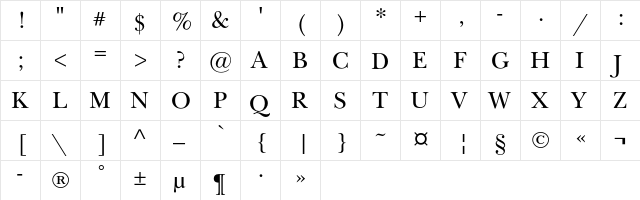
NewBaskervilleExpScC Regular
Design Context for NewBaskervilleExpScC Typeface
NewBaskervilleExpScC is a composed and adaptable typeface that performs quietly and consistently across a wide range of design contexts.